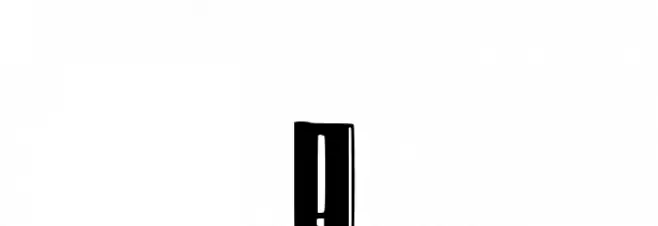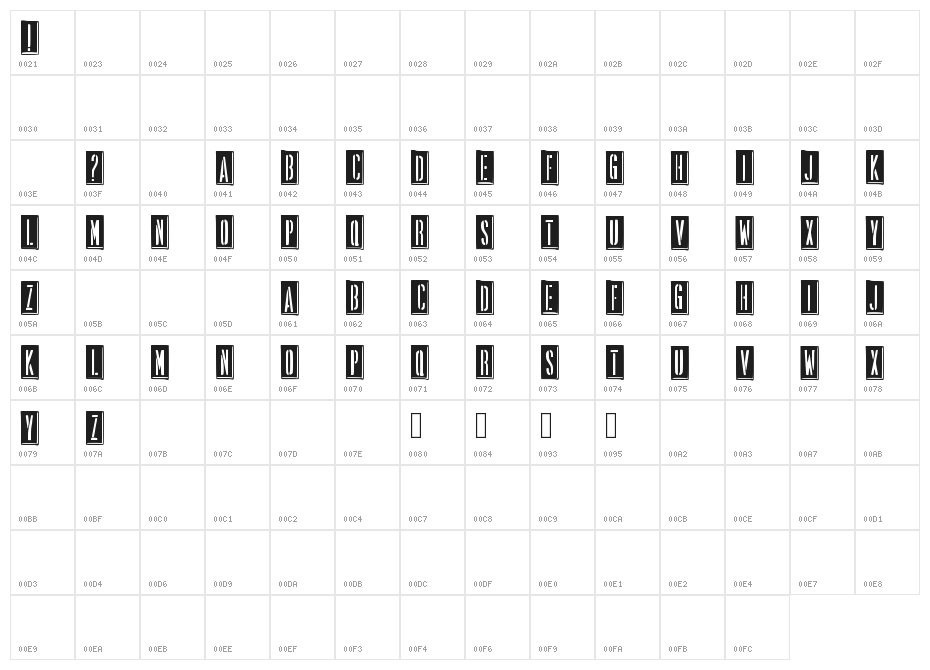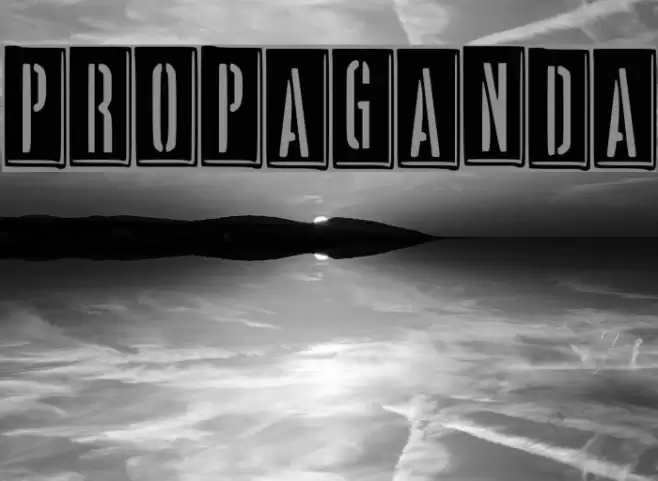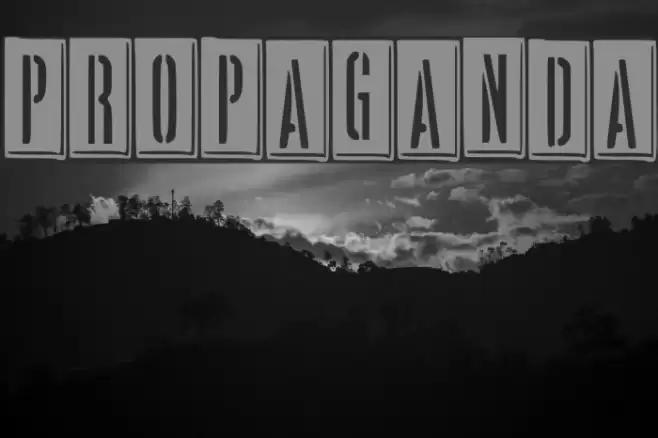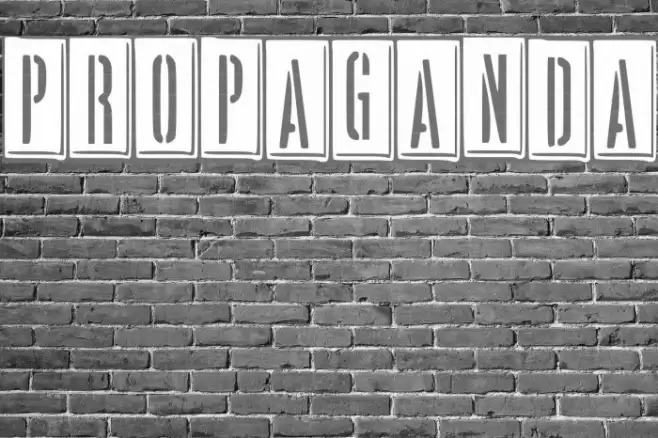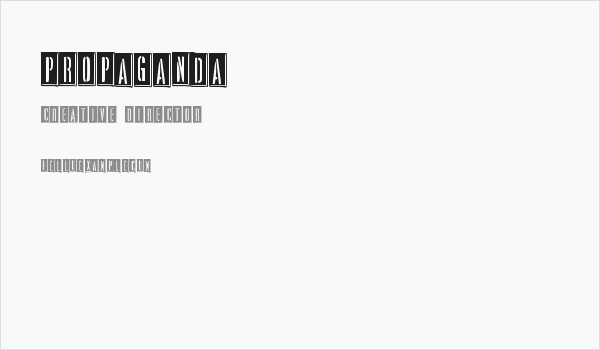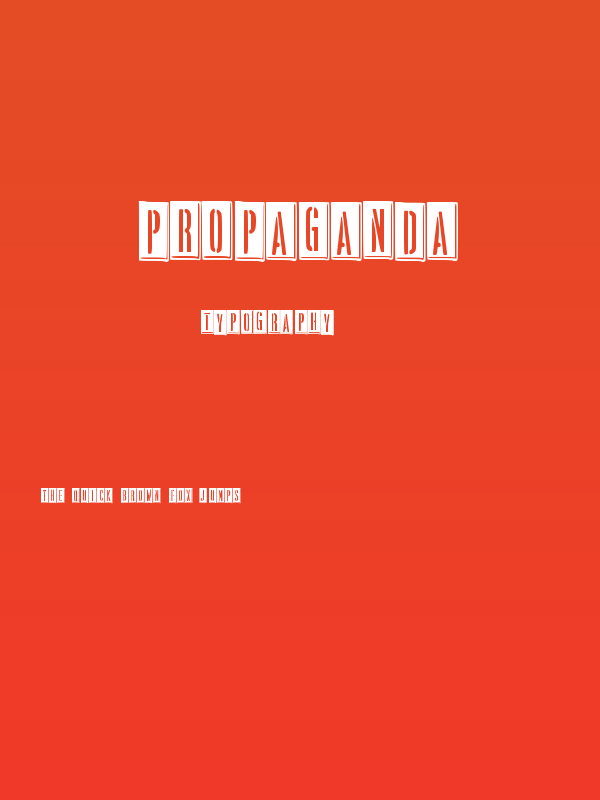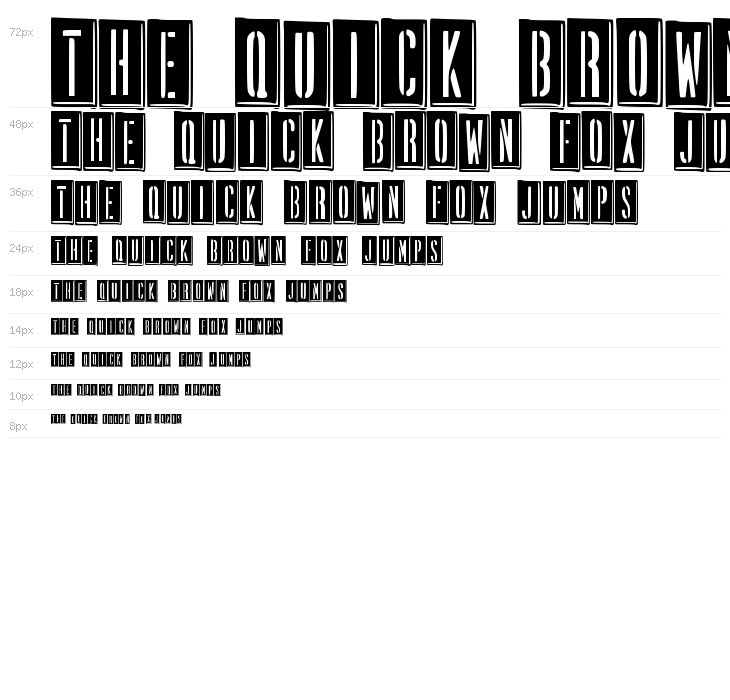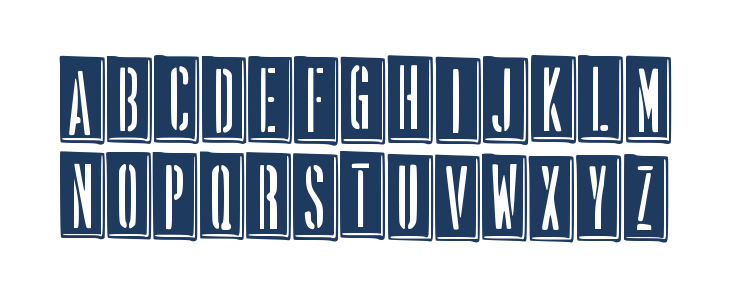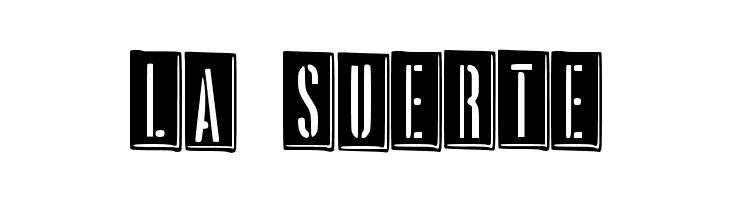
PROPAGANDA Font
PROPAGANDA Description
This font features a bold, stencil-like design with a strong, impactful presence. Each character is enclosed within a rectangular border, giving it a structured and uniform appearance. The letters are uppercase, with a distinct cut-out style that adds a sense of ruggedness and industrial flair. The font's high contrast between the thick and thin strokes enhances its boldness, making it ideal for attention-grabbing headlines or posters. The unique design elements suggest a vintage or retro aesthetic, reminiscent of old propaganda posters or military stencils.
| Proposed Projects | Ideal for posters, headlines, branding, and any design needing a strong, vintage industrial look. |